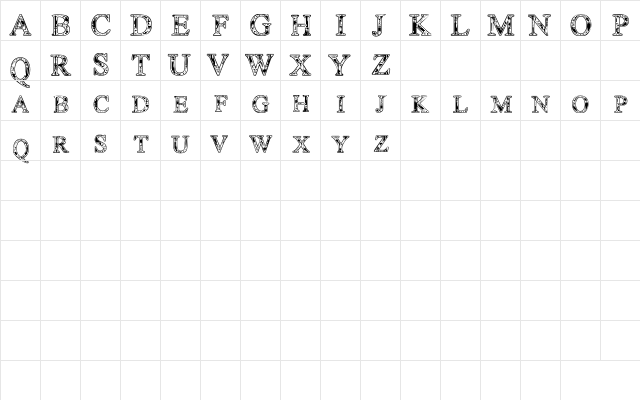
TechnoClastic Regular Font Preview
TechnoClastic Regular
TechnoClastic Regular Font Details
Design Context for TechnoClastic Typeface
TechnoClastic channels digital-age aesthetics through its sharp, structured letterforms — ideal for brands that want to signal innovation.